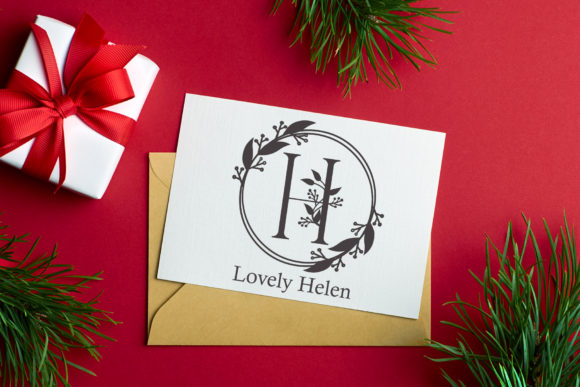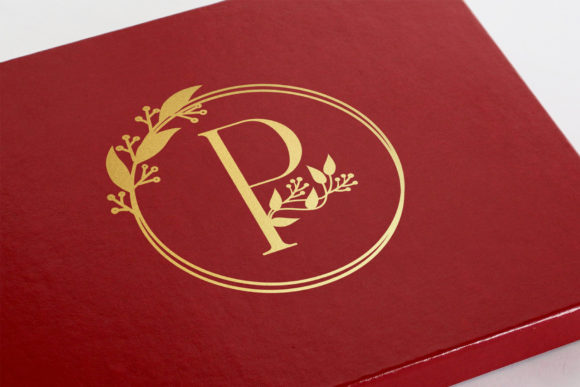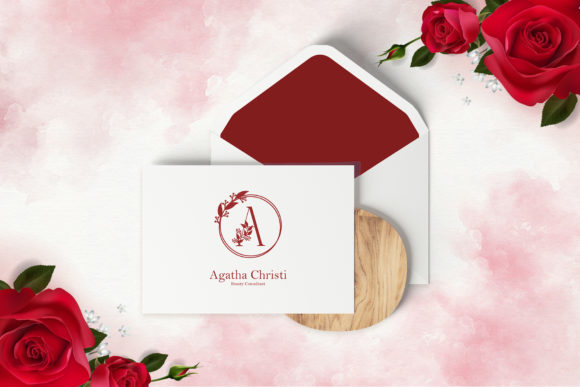
Introduction to Monogram Rosa Font
Do you remember that moment when you stumbled upon the perfect font for your creative project? The one that made your design come alive and stood out from the crowd? For many designers, that moment is a rush of excitement and a sense of satisfaction. Today, we’re excited to share with you the Monogram Rosa Font, a lovely decorative font that’s sure to make your designs bloom.
Monogram Rosa Font is more than just a pretty face – it’s a valuable design resource that can elevate your work to the next level. With its high-quality, free download, and transparent background, this font is perfect for designers who want to create stunning visuals without breaking the bank. Whether you’re working on a wedding invitation, social media post, or greeting card, Monogram Rosa Font is sure to add a touch of elegance and whimsy to your design.
Key Features of Monogram Rosa Font
- High-quality, elegant design perfect for creative projects and personal use.
- Monogram Rosa Font features a transparent background, allowing for easy customization and integration into any design.
- High-resolution design (up to 300 DPI) for print and digital use, making it suitable for a wide range of applications.
- Unique, hand-drawn design elements and intricate details create a distinctive and eye-catching aesthetic.
- Perfect for use in invitations, branding, packaging, and other creative projects where a touch of elegance is required.
Honest Review: Monogram Rosa Font
I recently had the chance to work with the Monogram Rosa Font for a creative project, and I must say it was a great experience. This font is a fantastic design resource, offering a high-quality and unique aesthetic that can elevate any design.
- High-quality design with detailed, intricate details
- Perfect for creating a vintage or elegant feel in your design
- Features a transparent background, allowing for seamless integration into your design
One of the standout features of the Monogram Rosa Font is its versatility. It can be used for a wide range of creative projects, from wedding invitations to branding materials.
- May not be suitable for designs that require a modern or minimalist aesthetic
- Can be quite ornate, which may make it difficult to read in certain contexts
Overall, I’m impressed with the Monogram Rosa Font and would definitely recommend it to designers looking for a unique and high-quality font. With its free download option and transparent background, it’s a great resource to have in your design arsenal.
When using the Monogram Rosa Font, consider the context in which it will be used. This font is perfect for creative projects, such as invitations, posters, and social media graphics. To get the most out of the font, experiment with different font sizes, colors, and combinations to create a unique design.
The Monogram Rosa Font is ideal for design projects that require a high-quality, unique font. Some common use cases include:
- Social media graphics and posts
- Event branding and signage
Yes, the Monogram Rosa Font is designed to work seamlessly with a transparent background. This makes it perfect for use on dark or busy backgrounds, where the font’s elegance can really shine through.